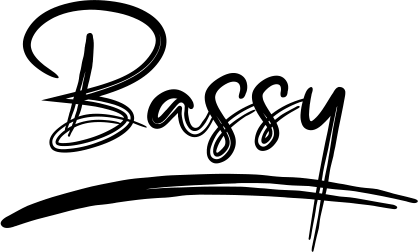
Bassy Font
Sit tight and get ready for an amazing text design. Bassy features flowing characters and works flawlessly for posters, signs, logos, and so on. This brush font gives a natural vibe. Don’t waste time and click on the download button right now. If you need more, head over to our limitless brush font inventory.